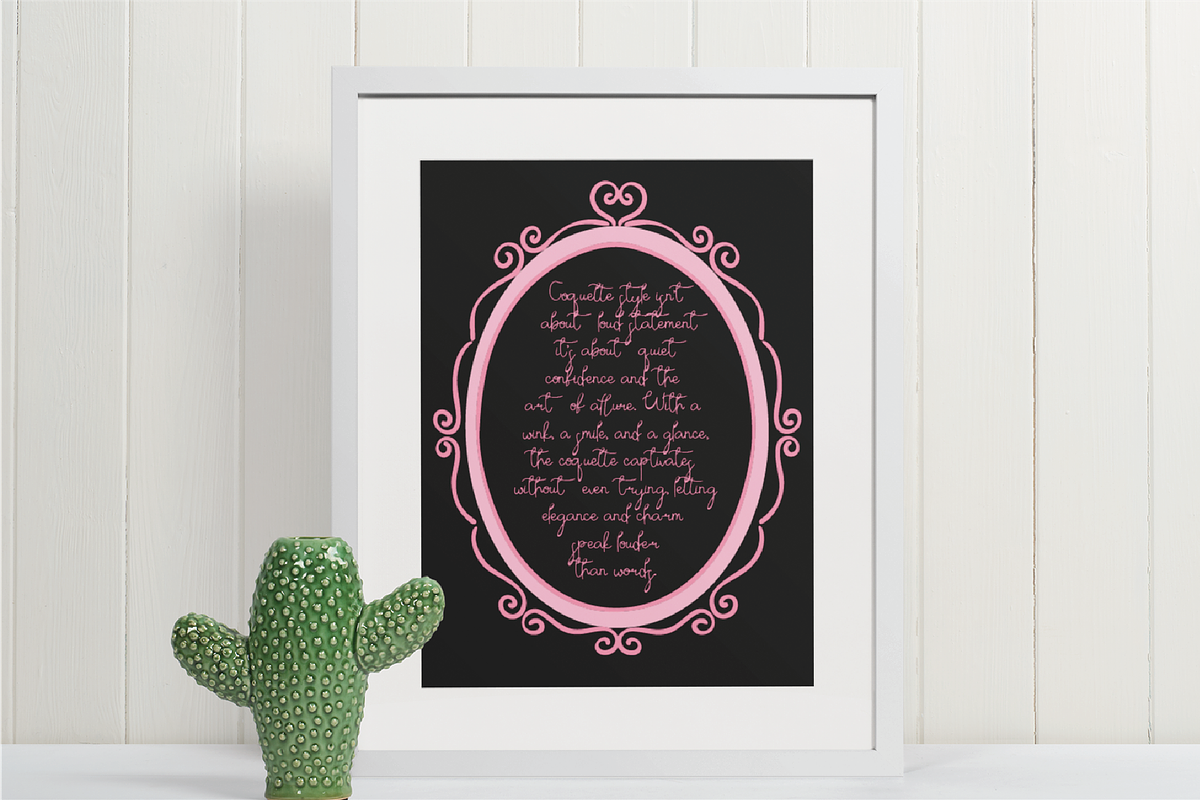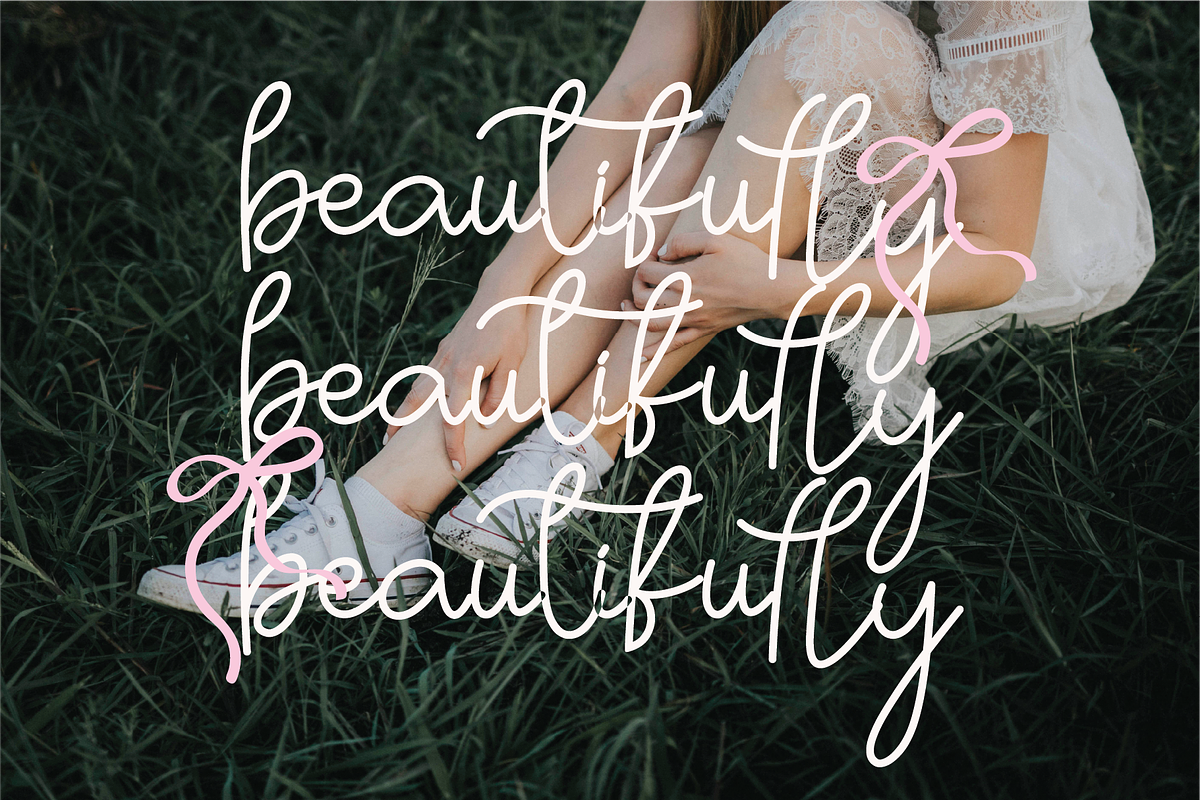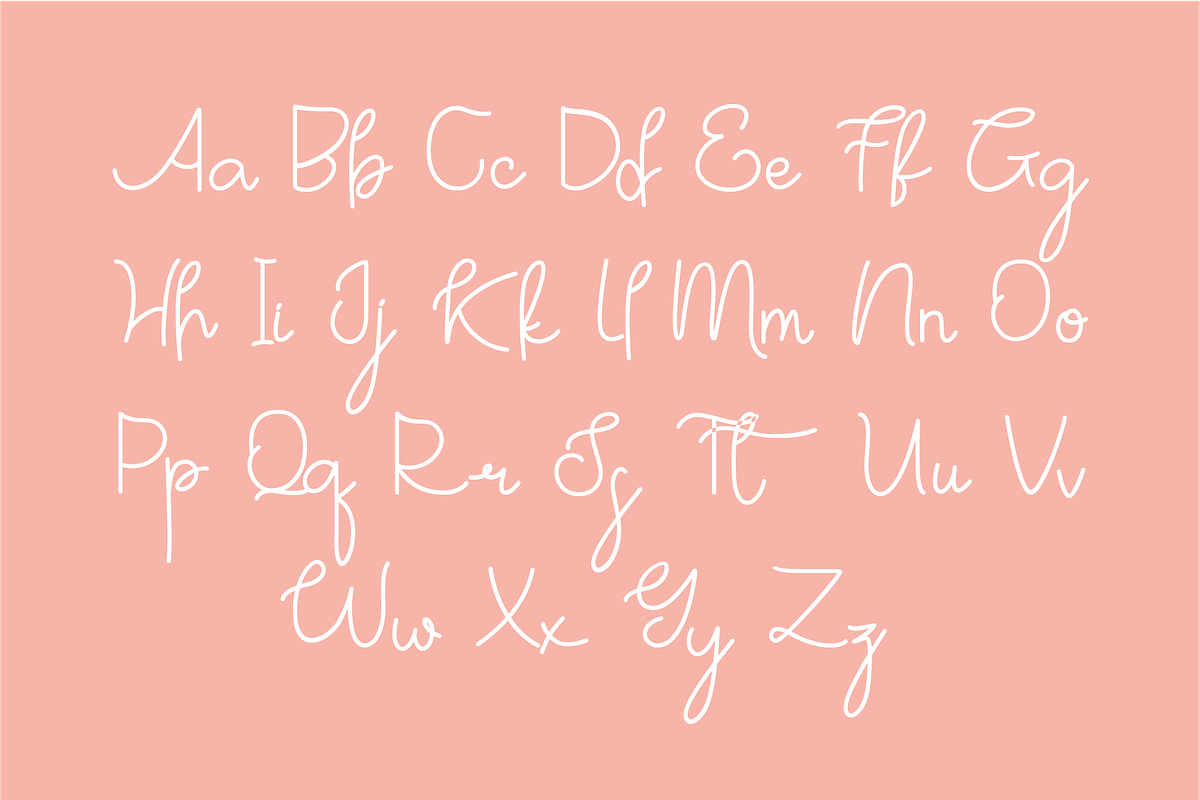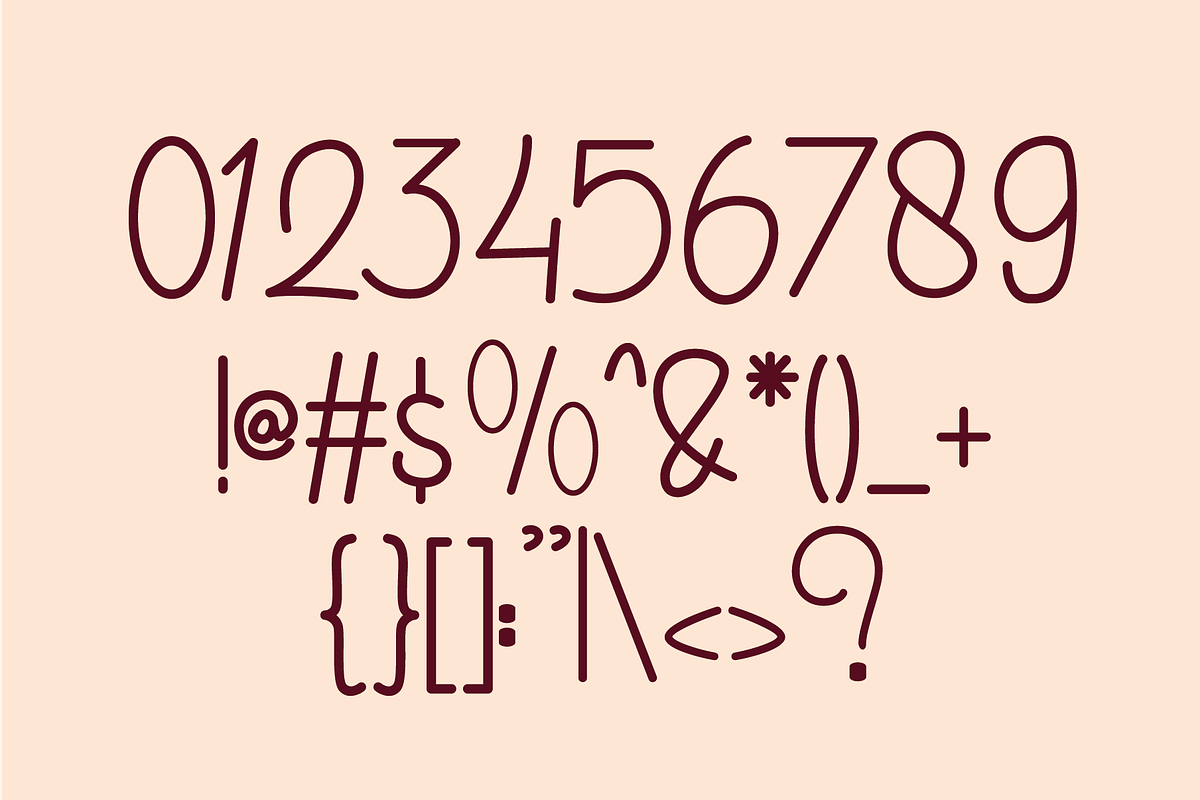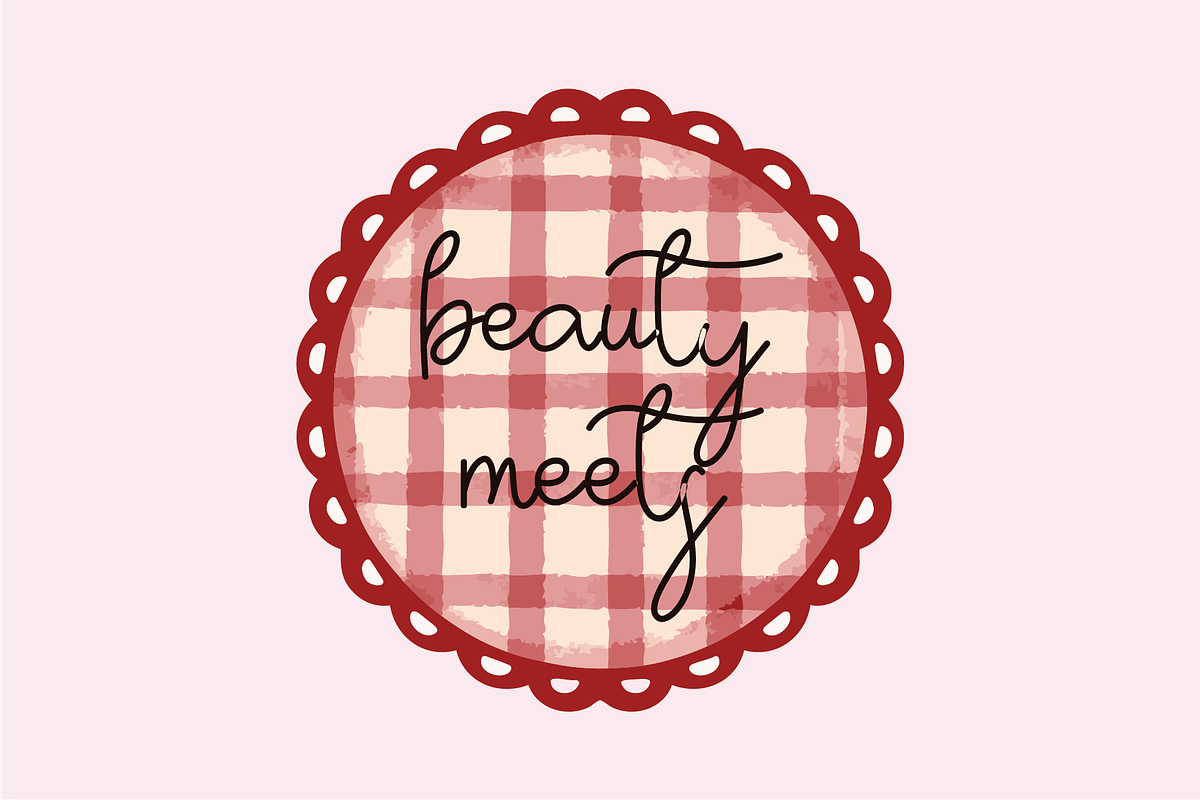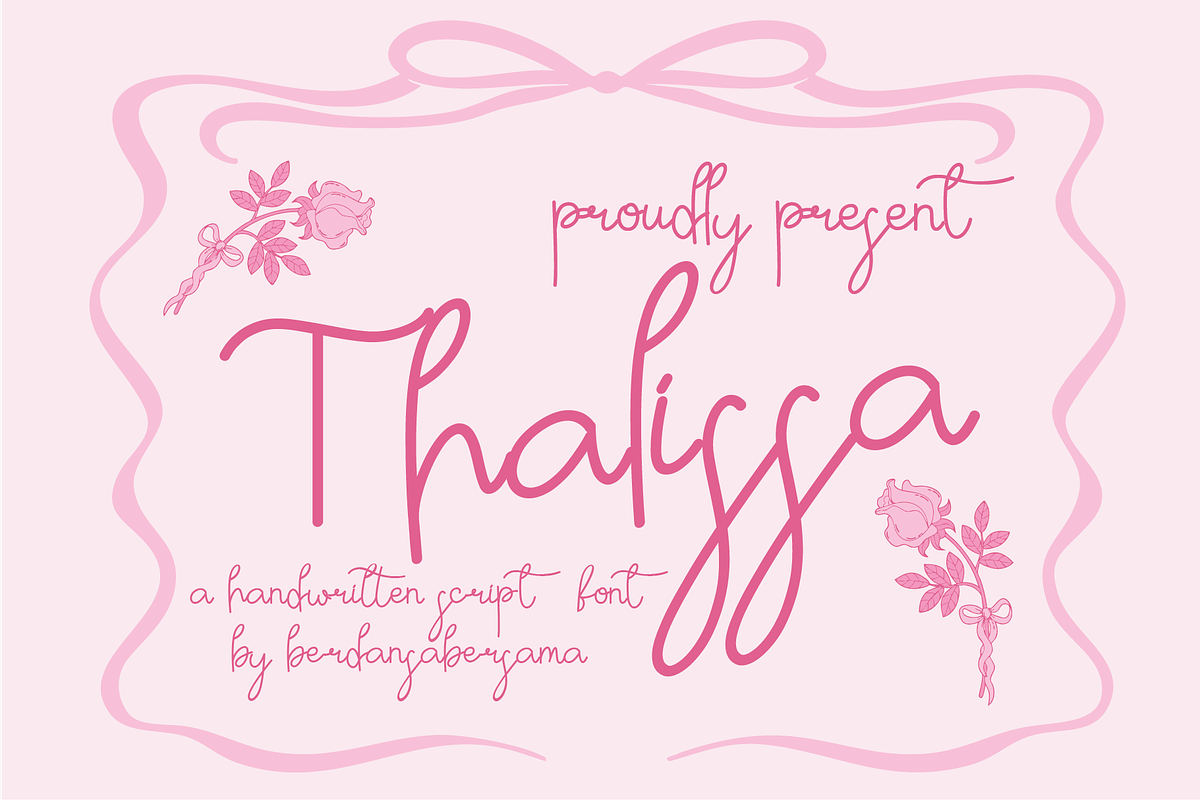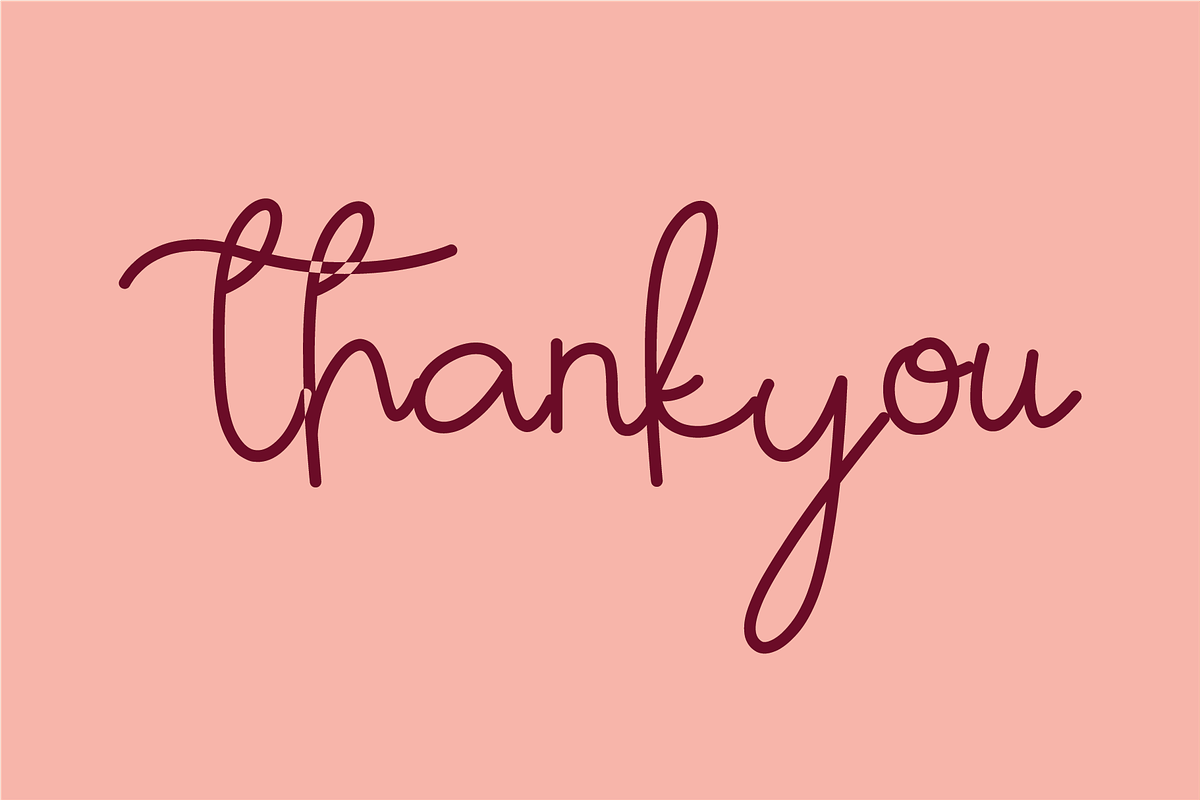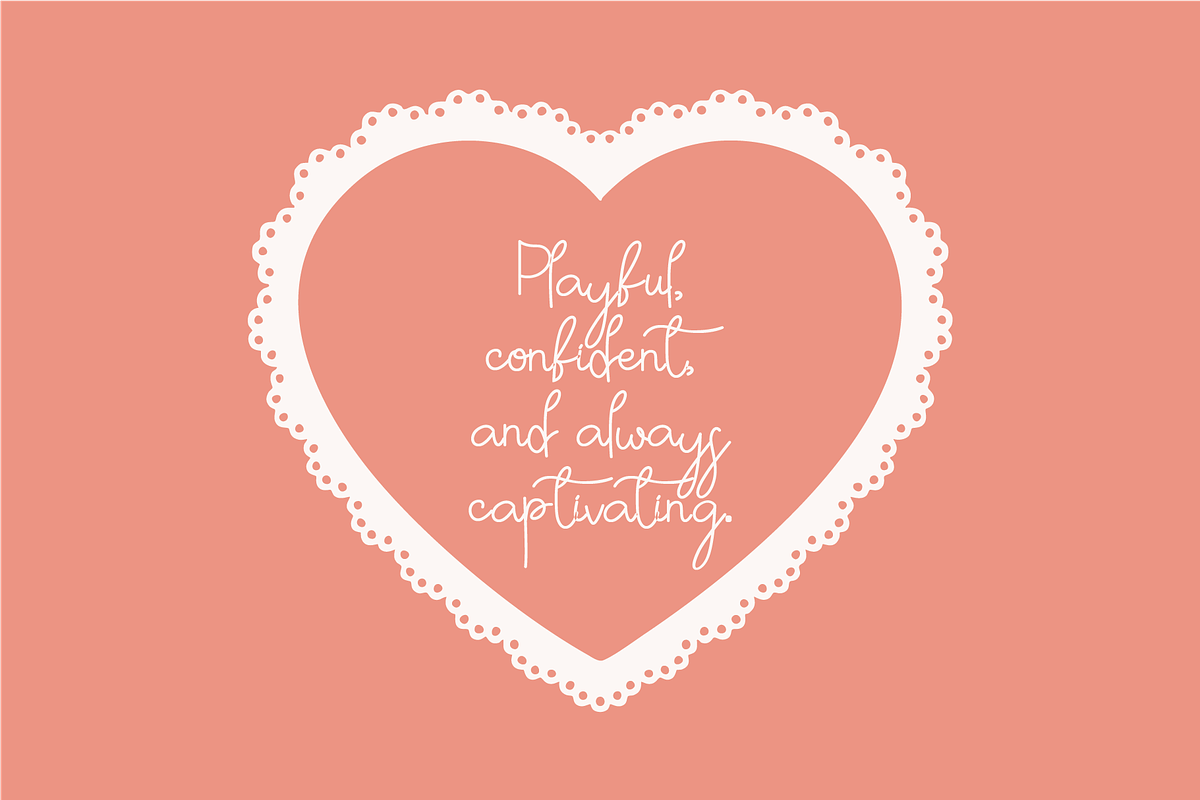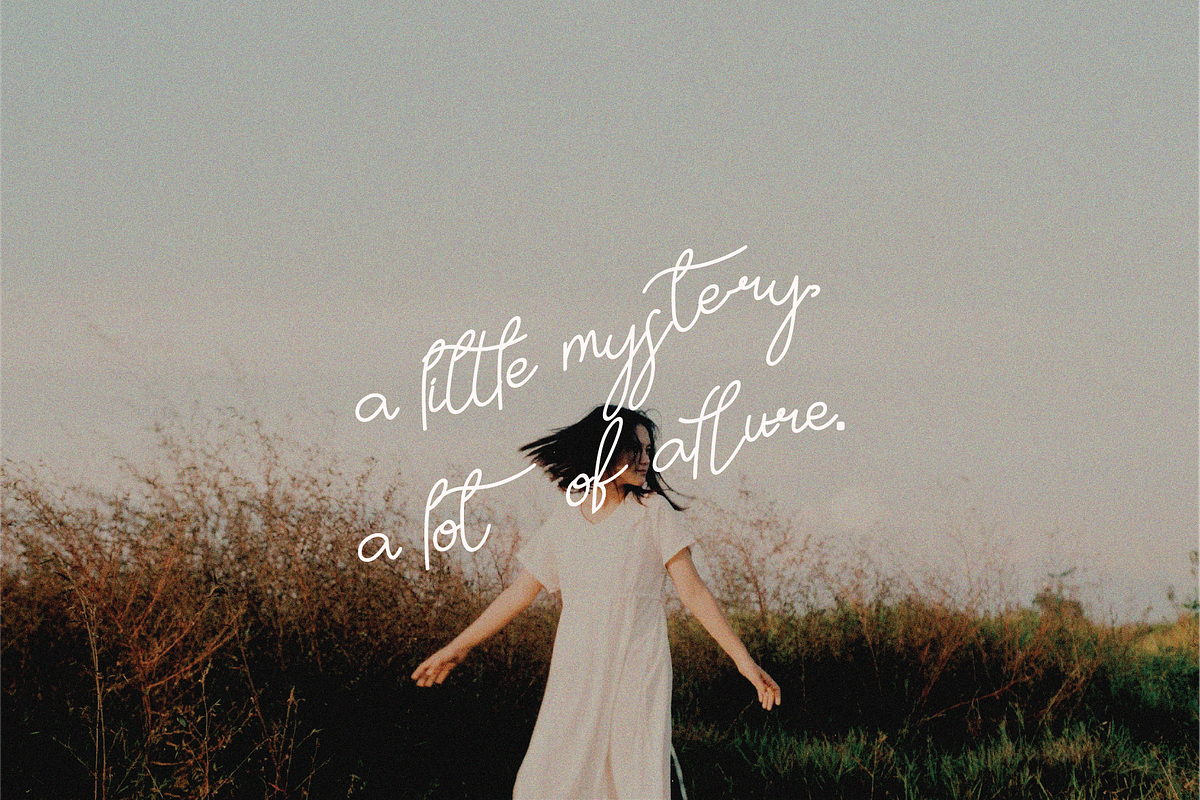
Thalissa Script
Thalissa is a delicate handwritten script font that radiates romance and grace. With elegant curves and smooth flowing lines, it captures the charm of a heartfelt handwritten note.
- Numbers, marks and symbols